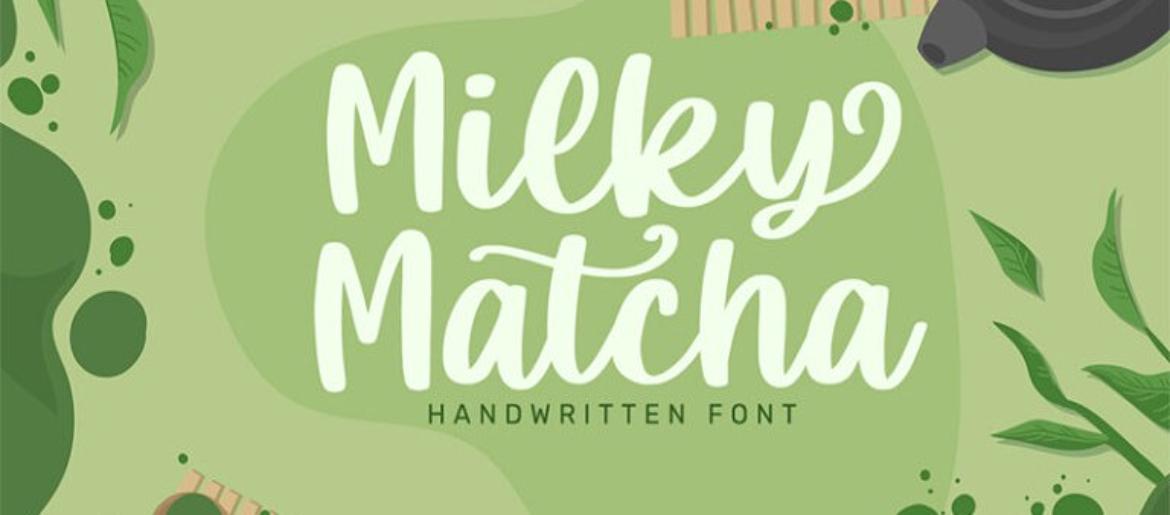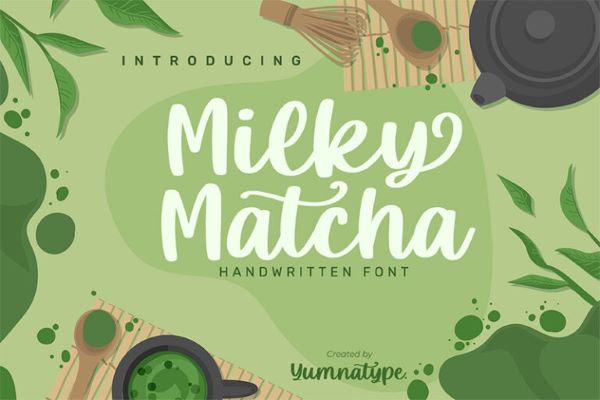
Milky Matcha Font
Milky Matcha font
Milky Matcha Font is a sweet handwritten typeface with soft strokes and a cozy, friendly feel. Its natural lettering style makes it perfect for journals, social media posts, packaging, quotes, and creative designs that need a warm, casual, and charming touch.
➤ Font Name: Milky Matcha
➤ Designer: Yumna Family
➤ Style: Handwritten
Milky Matcha font